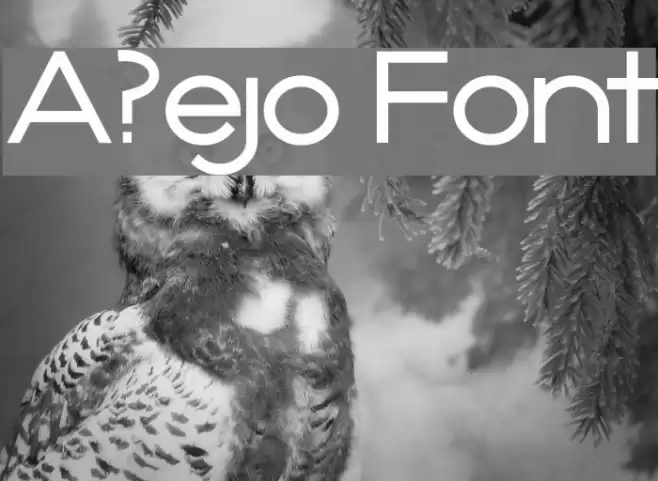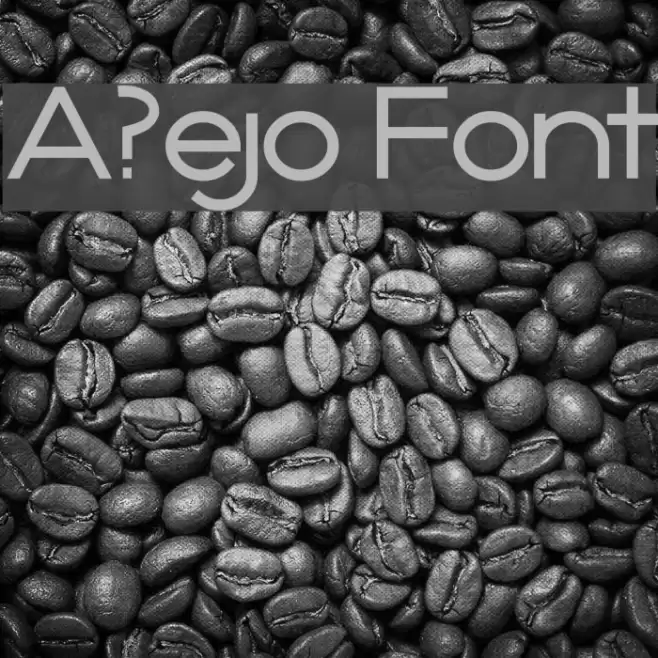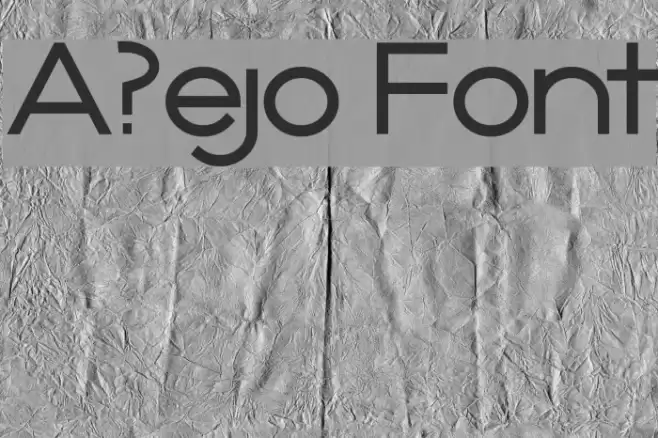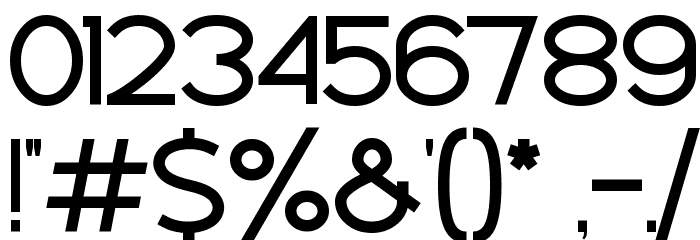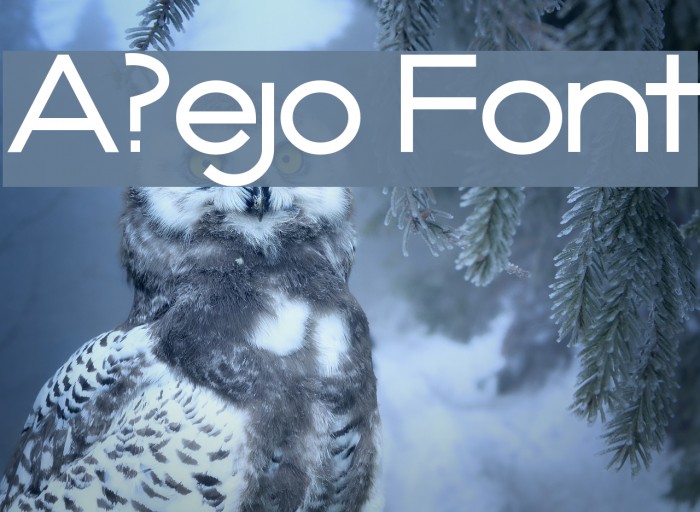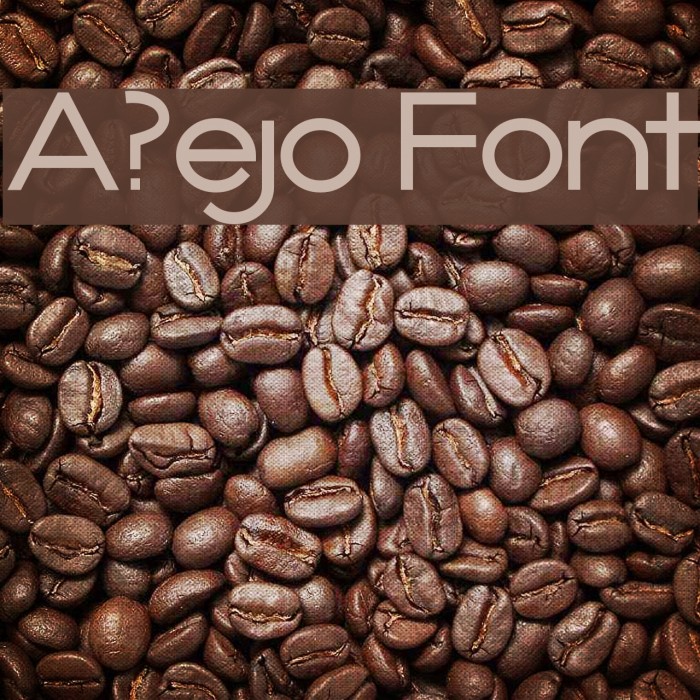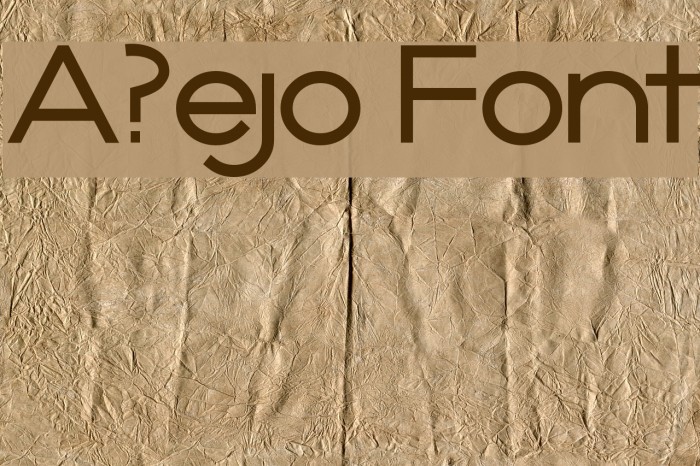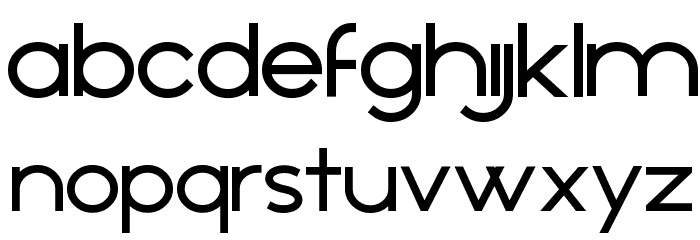
A?ejo Font
A?ejo Description
This font features a clean and modern sans-serif style with a geometric structure. The characters are uniform in width, providing a balanced and harmonious appearance. The uppercase letters are bold and striking, while the lowercase letters maintain a consistent roundness, contributing to the font's approachable and friendly look. The numerals are clear and legible, making them suitable for various applications. Special characters are well-defined, enhancing the font's versatility. Its simplicity and clarity make it ideal for contemporary design projects.
A modern, geometric sans-serif font with a clean and balanced appearance from Uncategorized fonts.
- Proposed Projects: Ideal for branding, web design, advertising, and editorial layouts.